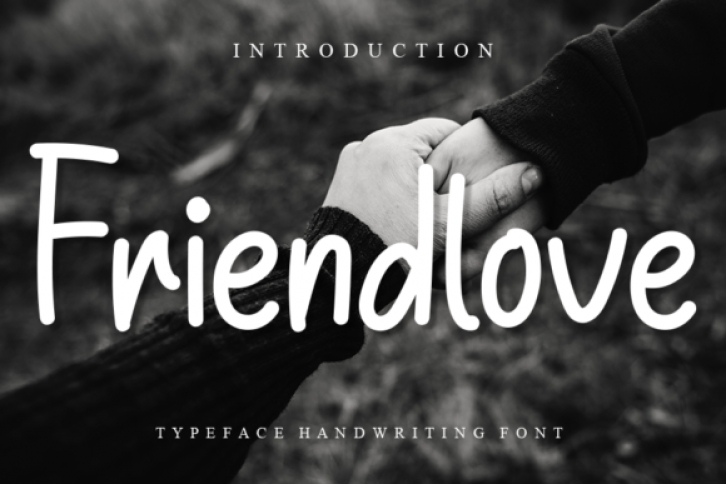
Friendlove is a sweet and clean handwritten font. Natural and simple, this font will fit a wide range of designs. Not too thin and not too thick, balanced and varied, Friendlove was designed to enhance the beauty of your projects.